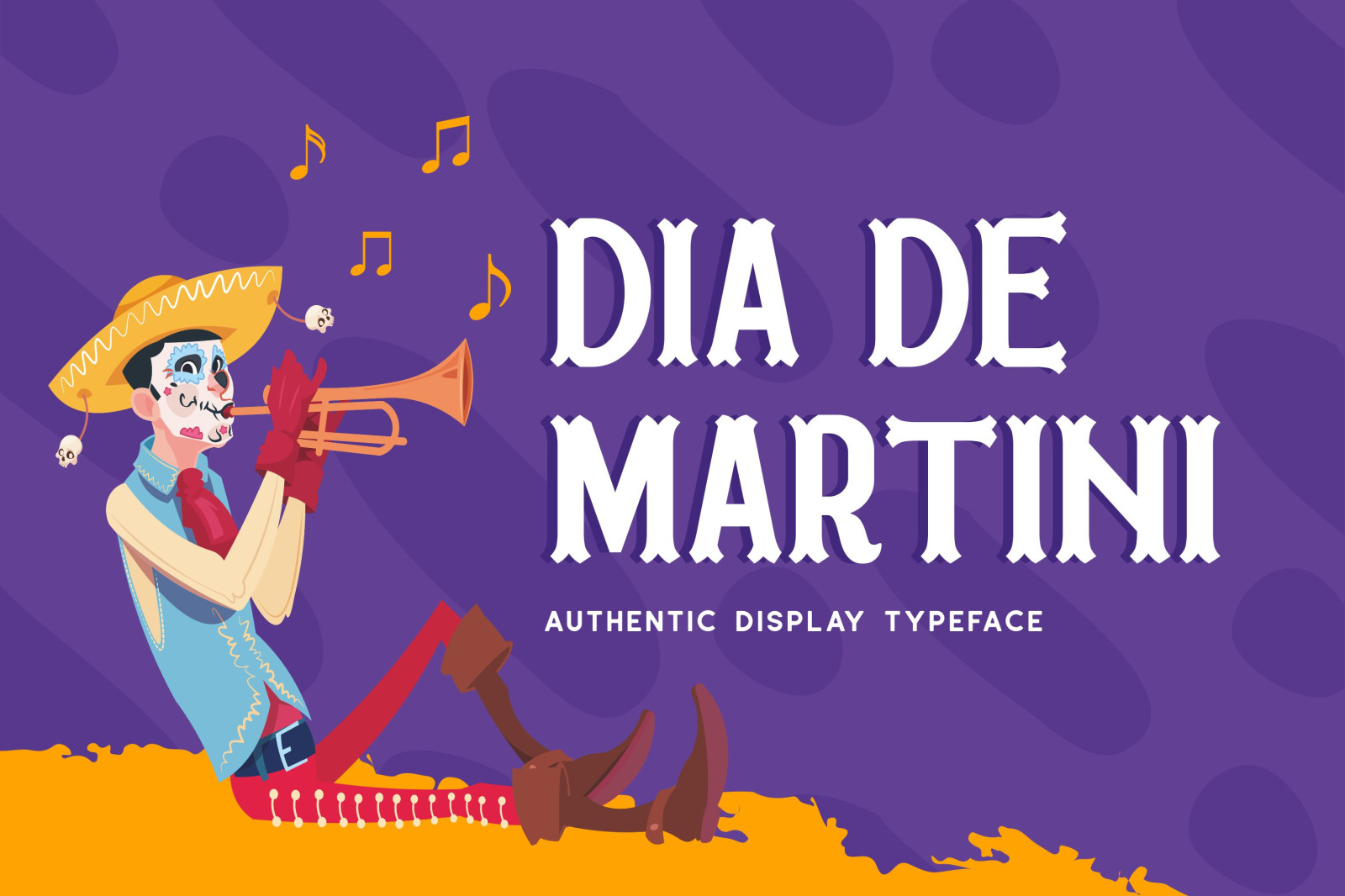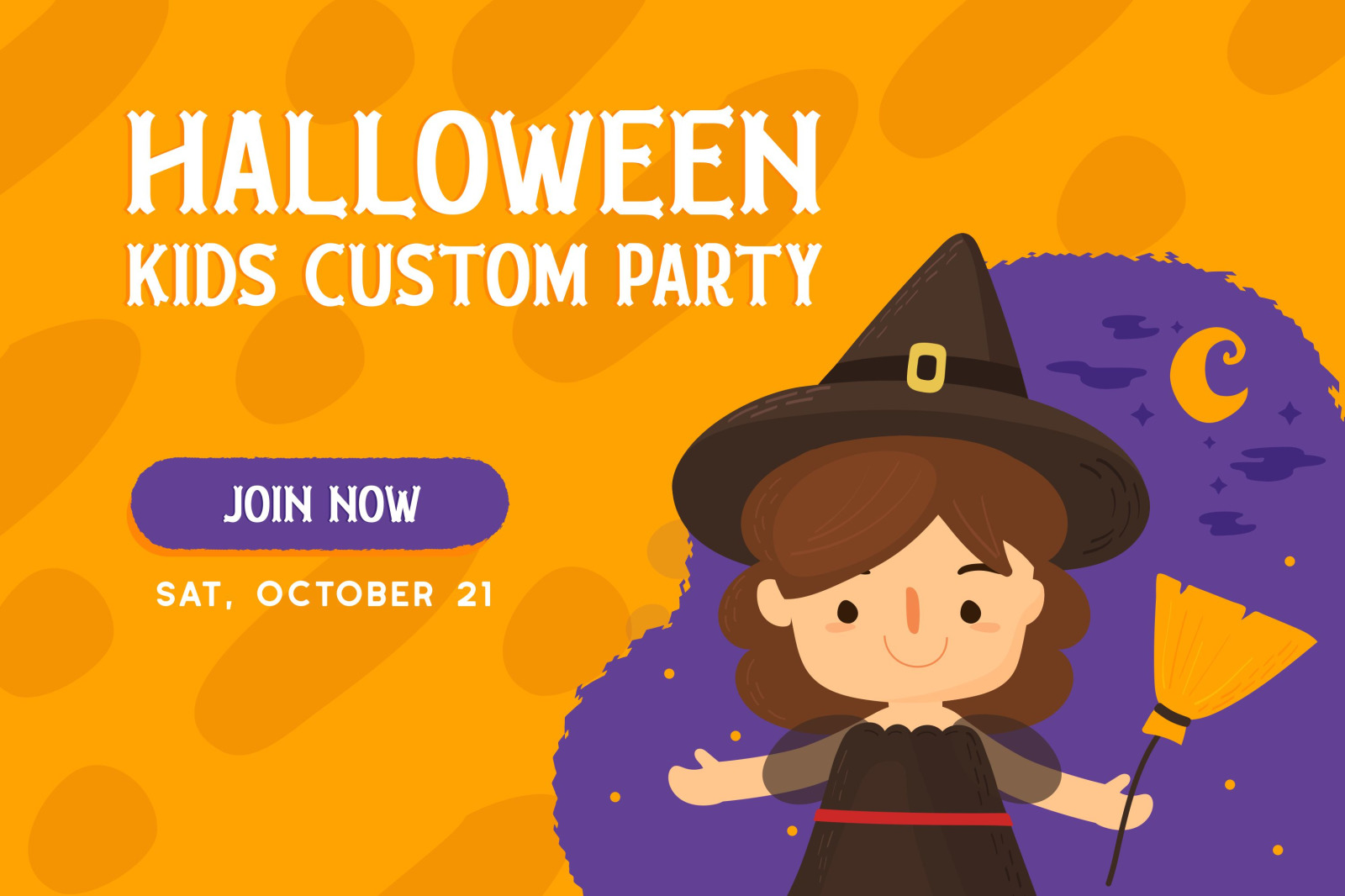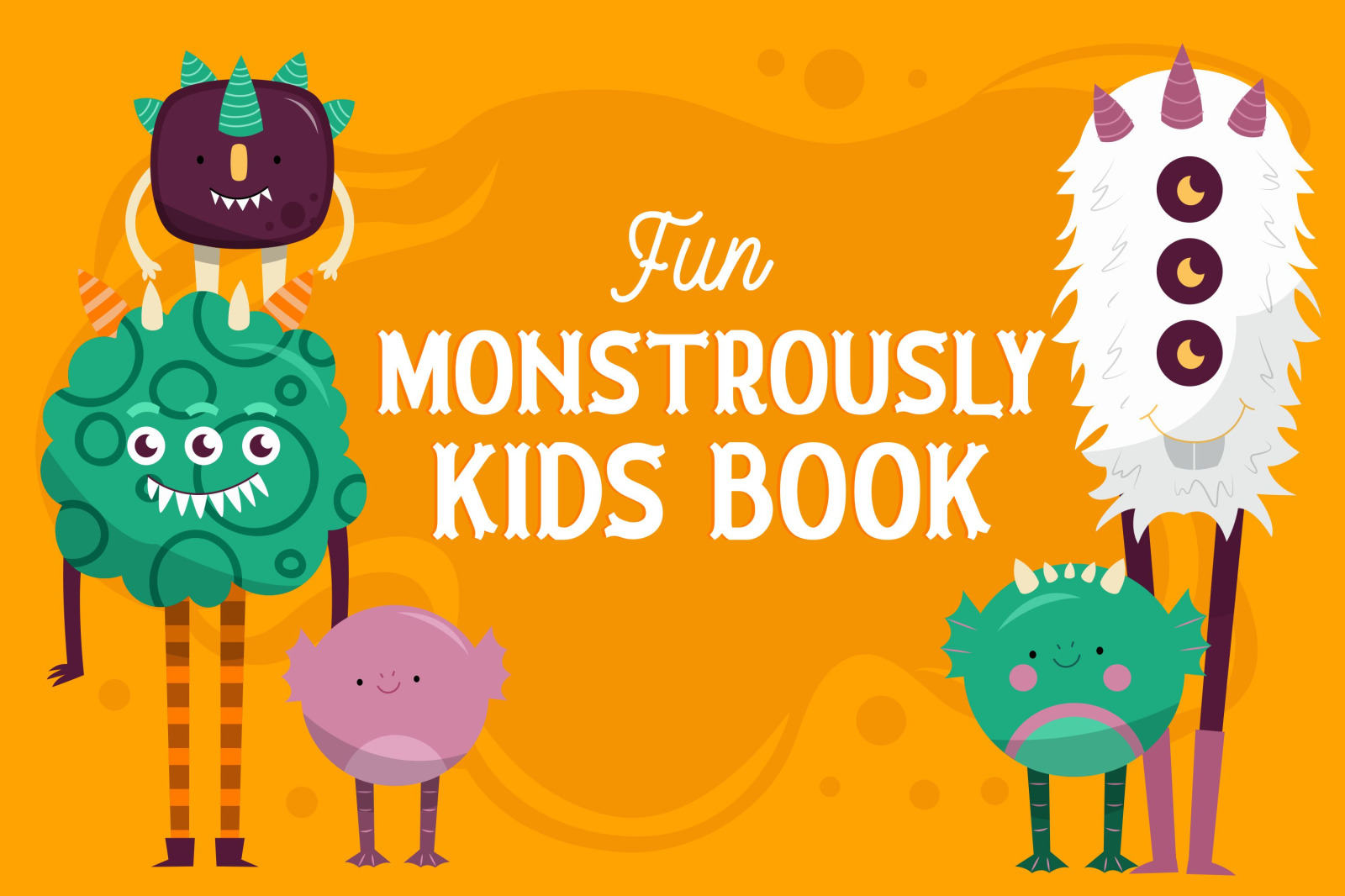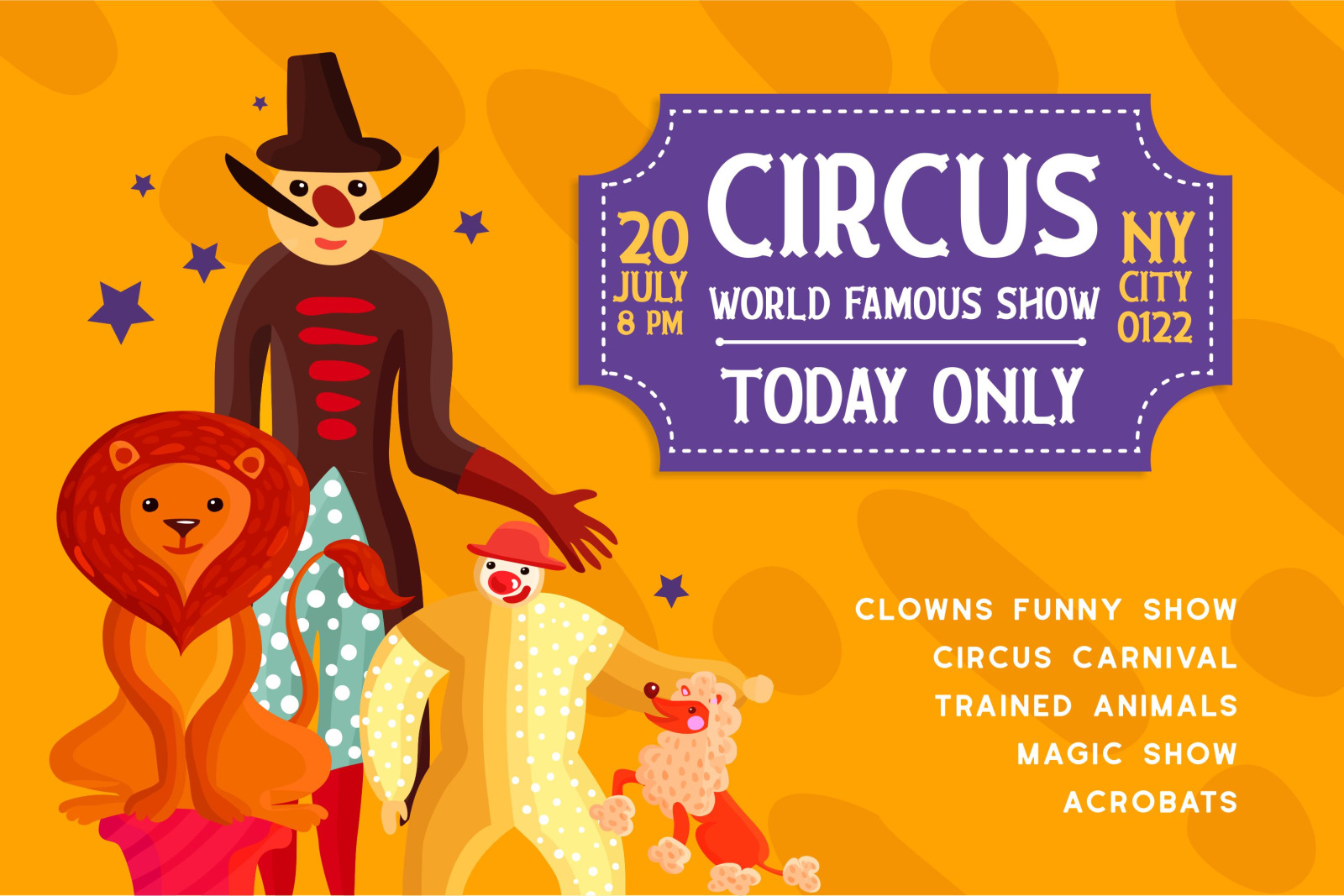
Dia De Martini Font
Dia De Martini is a sweet, charming and incredibly playful display font that’s full for life. It will make any kid’s designs stand out!